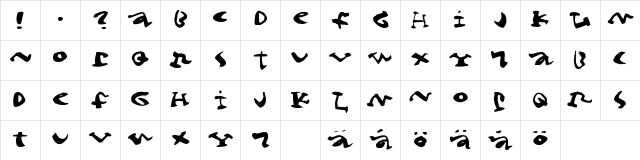
Cigar Regular Free Font
Cigar Regular
Design Context for Cigar
Cigar is a composed and adaptable typeface that performs quietly and consistently across a wide range of design contexts.